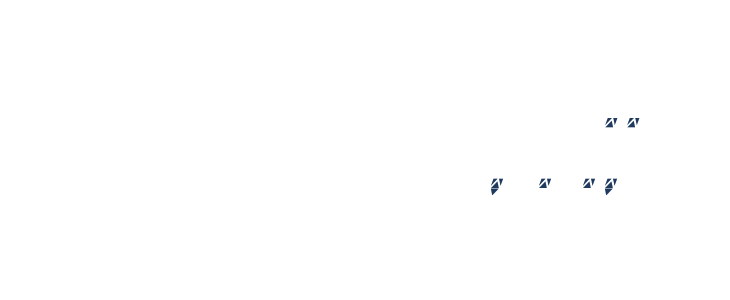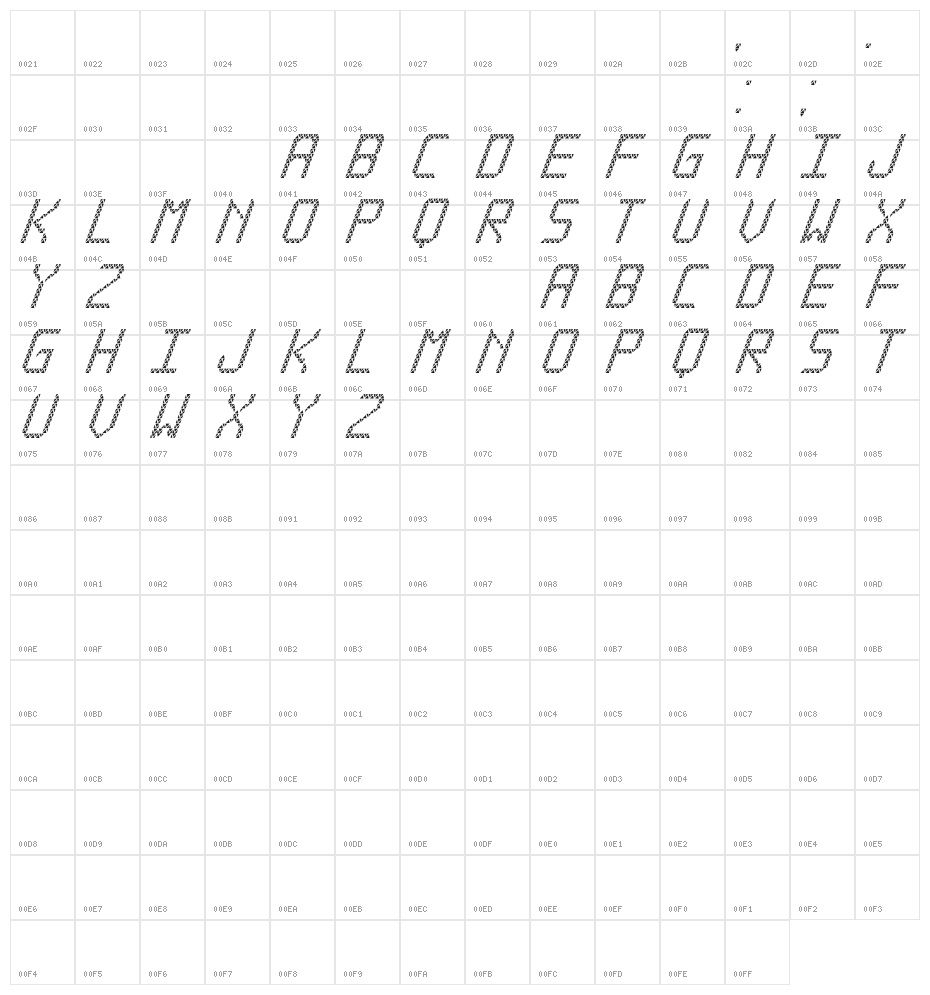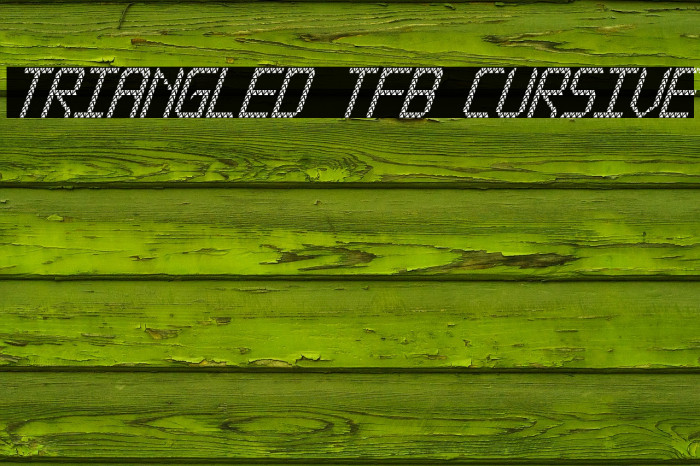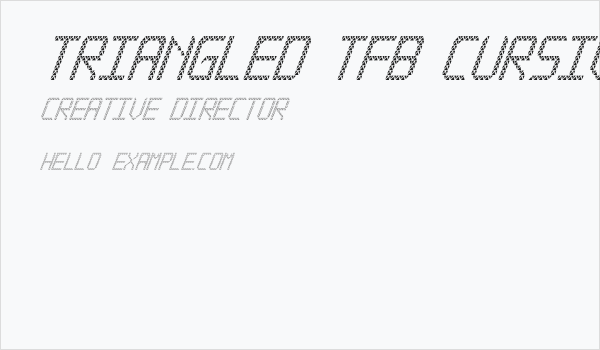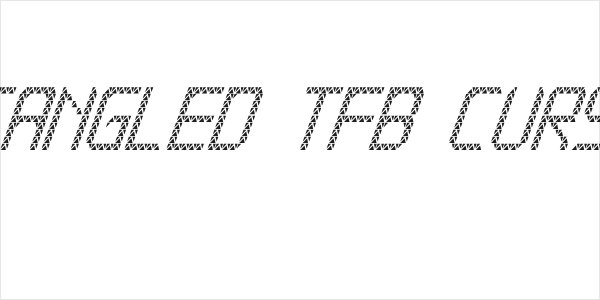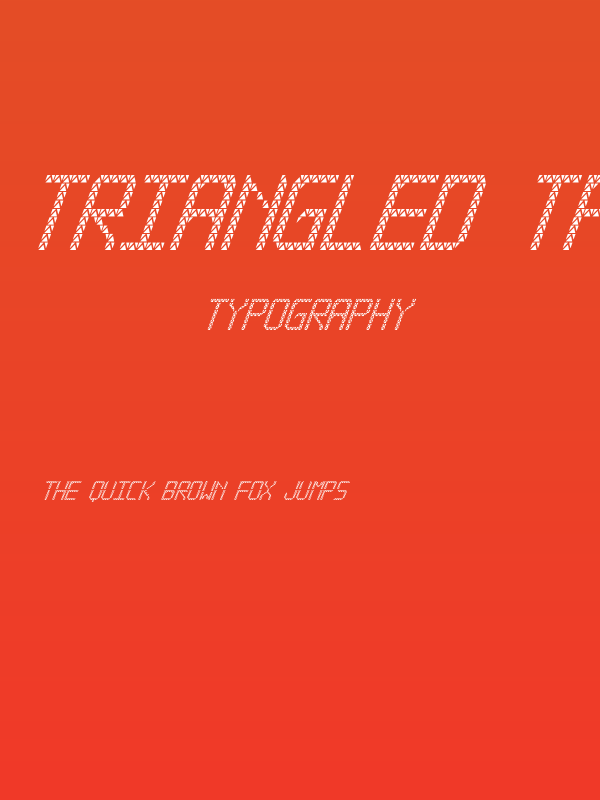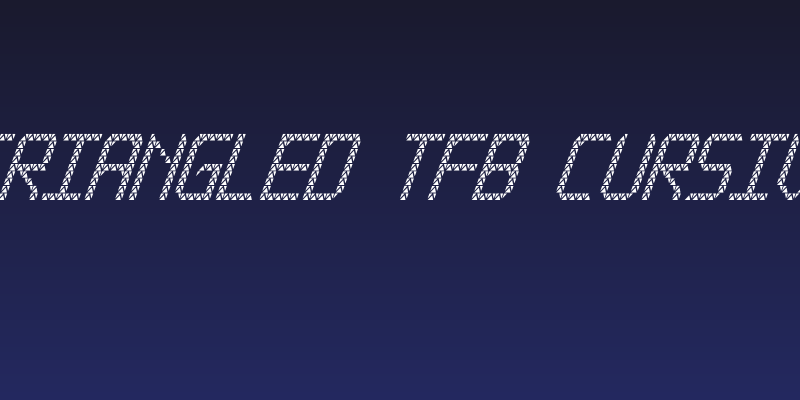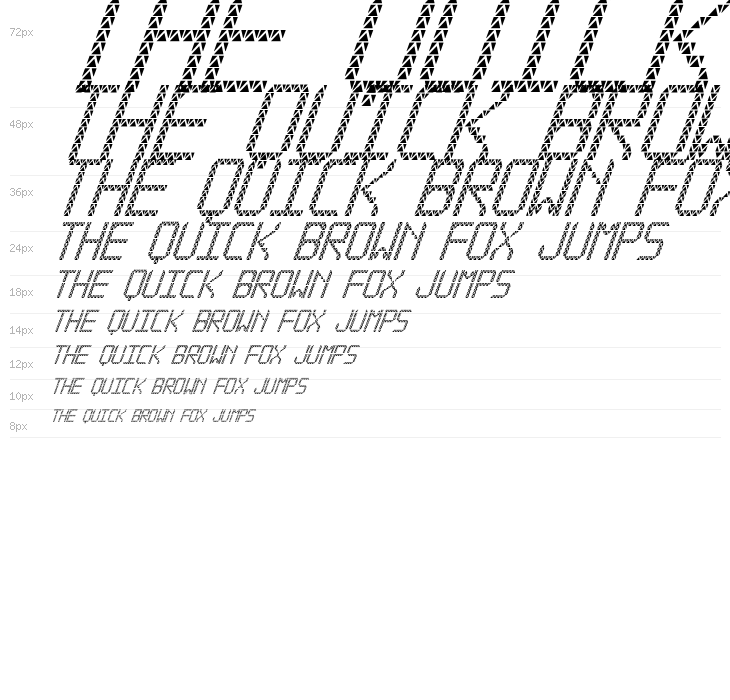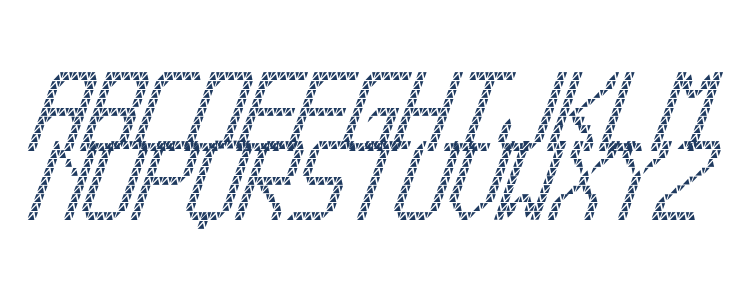
Triangled tfb cursive Font
Triangled tfb cursive Description
This font features a unique design where each character is constructed using a pattern of small, interconnected triangles. The geometric style gives it a modern and edgy appearance, making it stand out with its intricate detailing. The uppercase letters are bold and prominent, while the lowercase letters maintain the same triangular pattern, ensuring consistency throughout. The numbers and special characters also follow this distinctive style, adding to the font's cohesive look. The overall design is both decorative and structured, offering a fresh take on traditional typography.